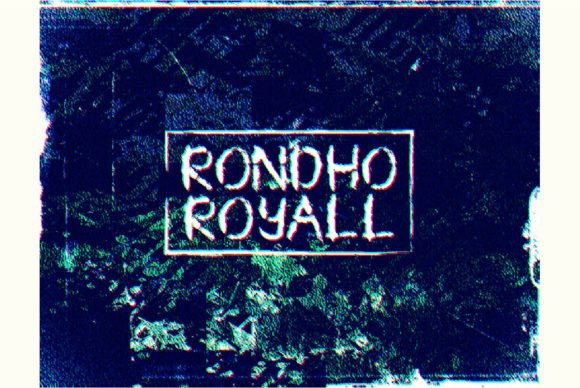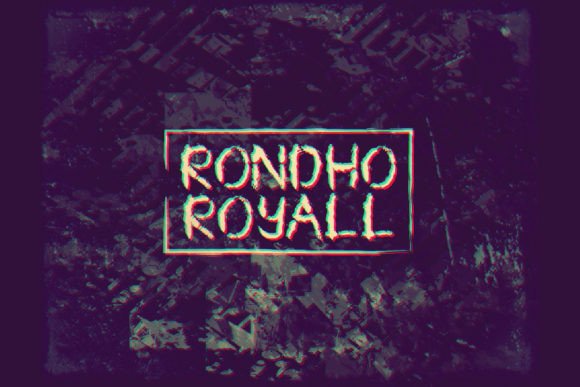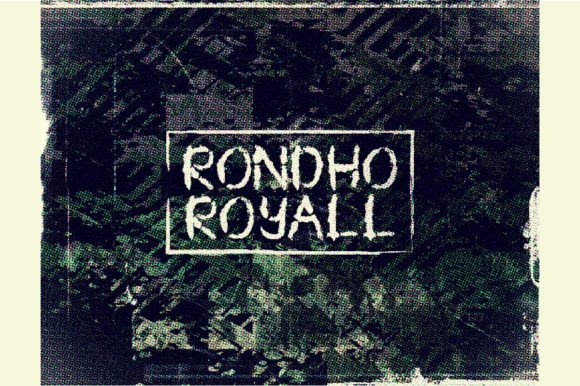
Introduction to Rondhoroyall Font
Rondhoroyall is a cool and unique all-caps display font.
Its strong and masculine look makes it suitable for all your projects that need bold and daring typography .
Why Choose Rondhoroyall Font?
Rondhoroyall Font offers exceptional quality and versatility, making it a valuable addition to your design toolkit. Whether you’re creating for personal projects or commercial use, Rondhoroyall Font delivers professional results.